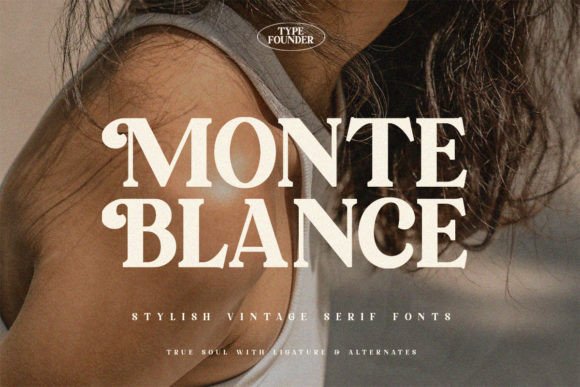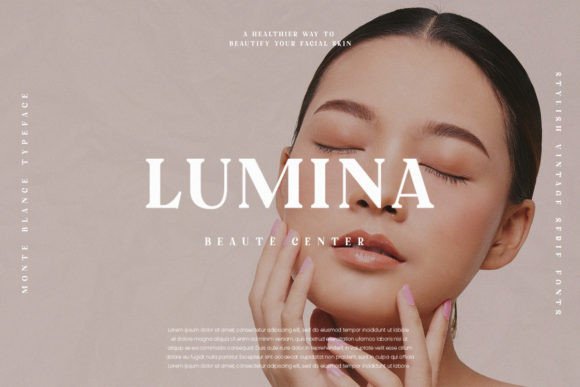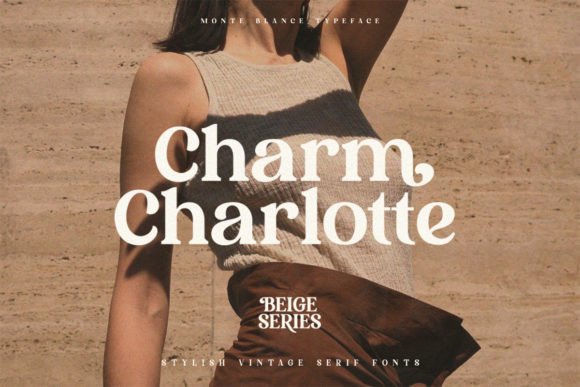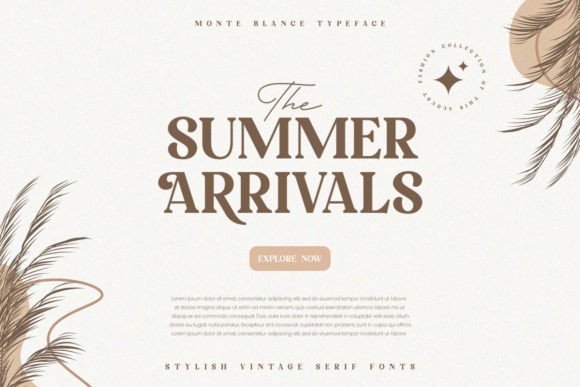
Monte Blance Font: Stylish Vintage Serif for Branding & Logo Design
About the Monte Blance Font
Explore the possibilities with Monte Blance Font, a font that offers both beauty and functionality. Monte Blance is a retro and stylish display font. This bold, unique, and vintage font can easily become your favorite. It can be used for books, magazine covers, social media posts, invitations, and so much more! So add this to your creations and take your designs to the next level!
Monte Blance excels as a display font for headlines, posters, and branding projects requiring a strong vintage aesthetic. Its bold character makes it ideal for short impactful statements, logos, and packaging design where it can command attention. However, its condensed letterforms and high x-height make it less suitable for body text or UI elements where readability over extended lengths is crucial.
Pairing Monte Blance effectively depends on the desired outcome. For a balanced, classic feel, consider pairing it with a clean, neutral sans-serif like Montserrat or a more refined serif like Garamond. To amplify its retro vibe, a geometric sans-serif such as Futura or a playful script font could be used for secondary text elements.
The overall personality of Monte Blance is bold and retro, projecting confidence and a sense of timeless style. It’s well-suited to brands aiming for a vintage-inspired, yet sophisticated image.